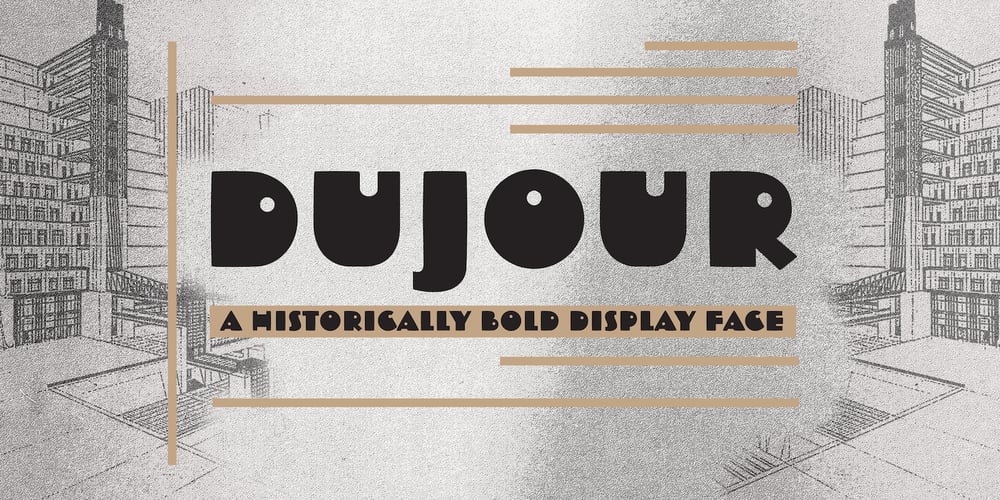
Dujour Font Family was designed by Steve Matteson and published by Ascender. Dujour contains 1 styles and family package options. Dujour is an art deco revival of the 1930s typeface Independent from the Collette and Dufour typefoundry. Steve Matteson created Dujour to enhance posters, signs or other documents with a touch of historical boldness.